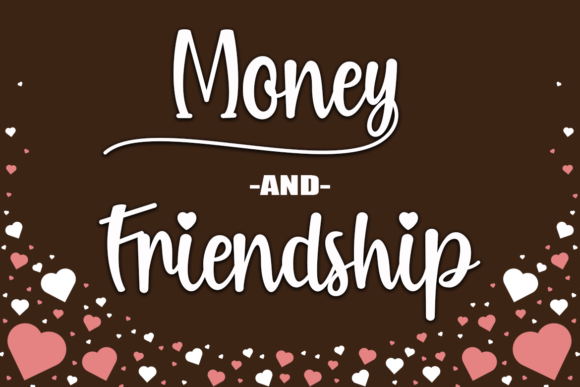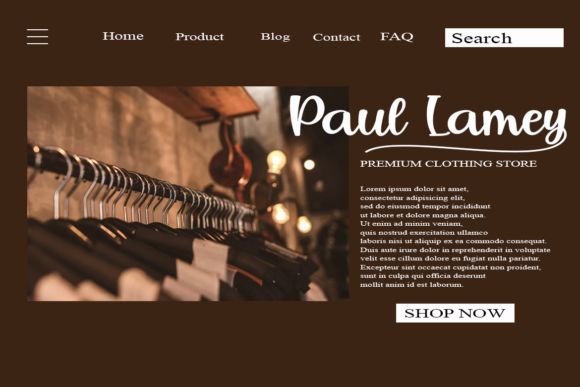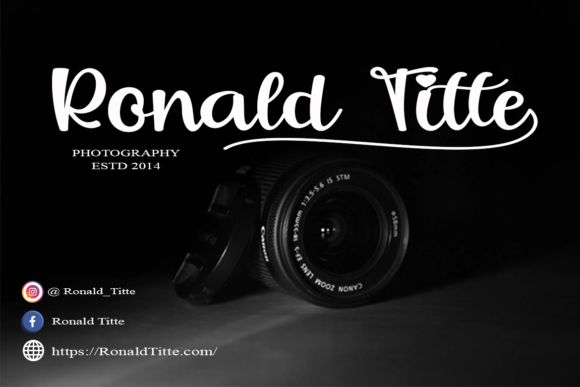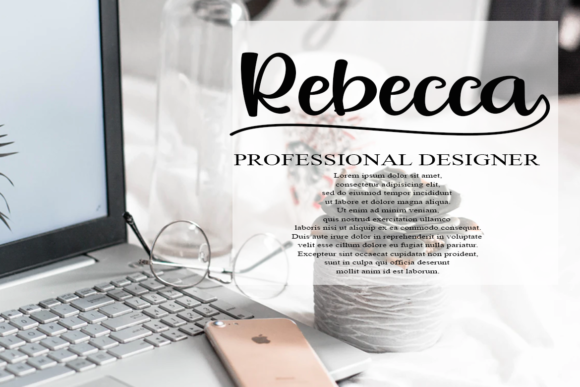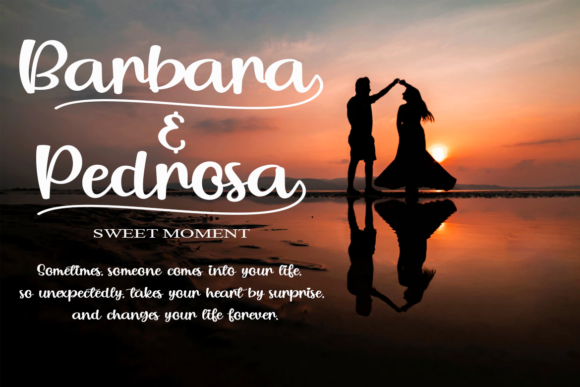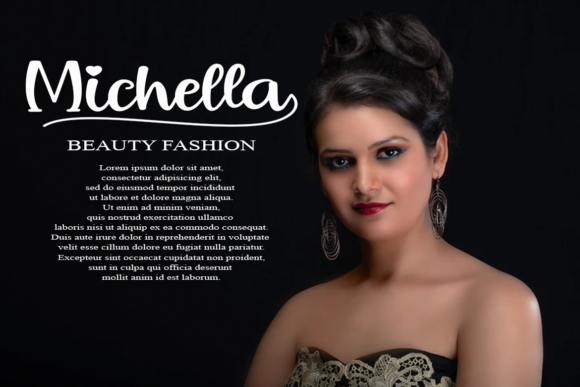
Introduction to Intimatte Font
Imagine you’re working on a creative project and you need the perfect script font to make it stand out. The words are flowing, the ideas are pouring in, but something’s missing – a touch of elegance, a dash of sophistication. That’s where the Intimatte Font comes in, a high-quality script font that’s designed to elevate your design and make it truly special.
With its beautifully crafted and highly detailed design, the Intimatte Font is a valuable resource for any designer. Whether you’re working on a free download project or a paid commission, this font is sure to impress. And with its transparent background, you can easily integrate it into any design without worrying about background clutter.
Key Features of Intimatte Font
- High-quality design for creative projects: Intimatte Font is designed to provide a unique and stylish look for your designs, making it a valuable design resource.
- Transparent background: The font features a transparent background, allowing you to easily combine it with other design elements and create a seamless look.
- Size: The font comes in a single size, making it easy to use in a variety of creative projects.
- Resolution: The font is designed to be resolution-independent, ensuring that it looks great at any size or resolution.
- Unique characteristics: Intimatte Font features a distinctive, elegant design that sets it apart from other fonts, making it a great choice for designers looking to add a touch of sophistication to their work.
Honest Review: Intimatte Font
One of the standout features of the Intimatte Font is its versatility. It works well for a wide range of design applications, from creative projects requiring a unique touch to branding and marketing materials that demand a professional look.
Here are some aspects that I particularly enjoy about the Intimatte Font:
- ✨ Unique, modern design that sets it apart from more common fonts
- ✨ High-quality vectors that ensure crisp and clear display
- ✨ Transparency options, including a transparent background, which is perfect for creative projects
However, there are a few limitations worth noting:
- ⚠️ Limited font sizes and styles available (although this may not be a significant issue for most users)
- ⚠️ May not be suitable for projects requiring extremely small or extremely large text
Overall, I’m impressed with the Intimatte Font. It’s a valuable design resource that’s perfect for creatives looking to add a touch of modernity to their projects. Give it a try and see how it can elevate your design work!
Tips for Getting the Most Out of Intimatte Font
Experiment with different font sizes and styles to achieve the desired effect.
Combine the Intimatte Font with other design elements to create a visually appealing design.
The Intimatte Font is ideal for creative projects that require a high quality, free download font with a transparent background.
Use it for graphic design, digital art, or any project where a unique font is needed.
Can I use the Intimatte Font with a transparent background?
Yes, the Intimatte Font is designed to work well with transparent backgrounds, making it ideal for creative projects that require a high level of design flexibility. Simply apply the font to your design, and use a transparent background or layer to achieve the desired effect.